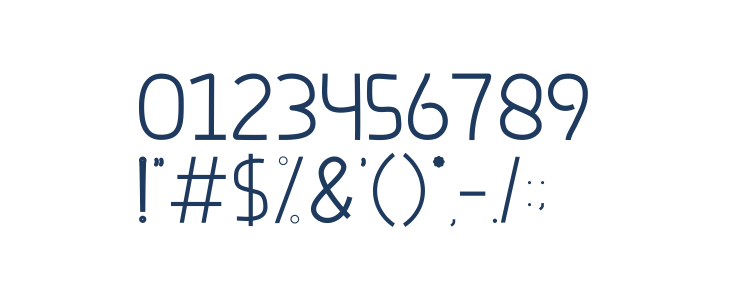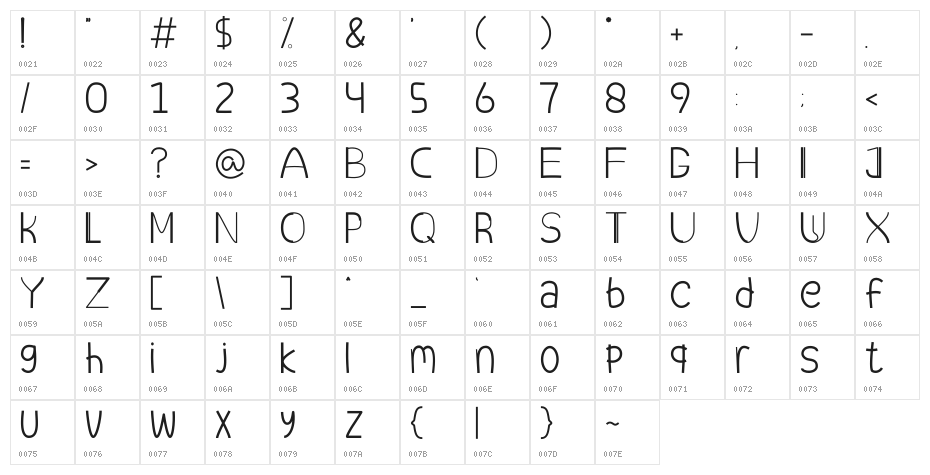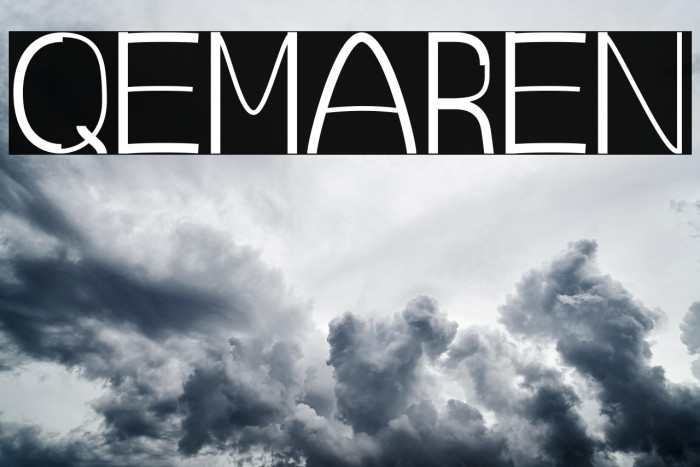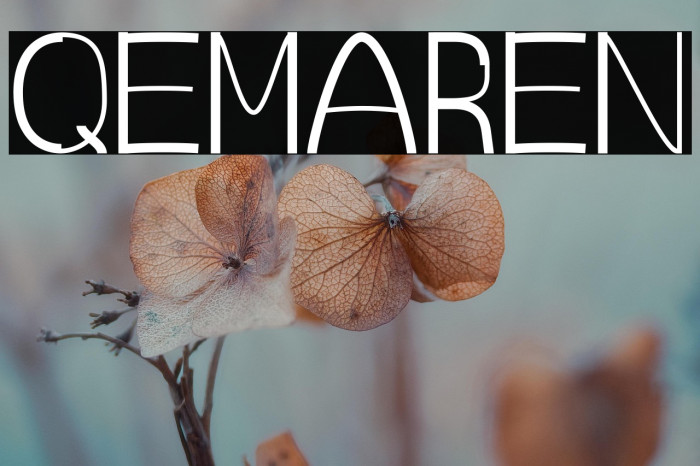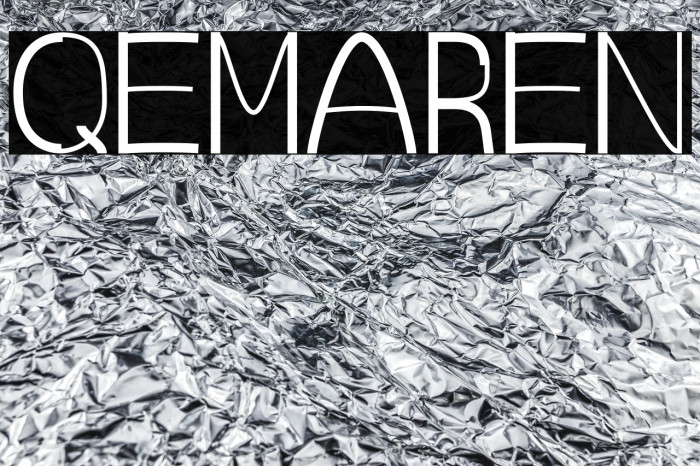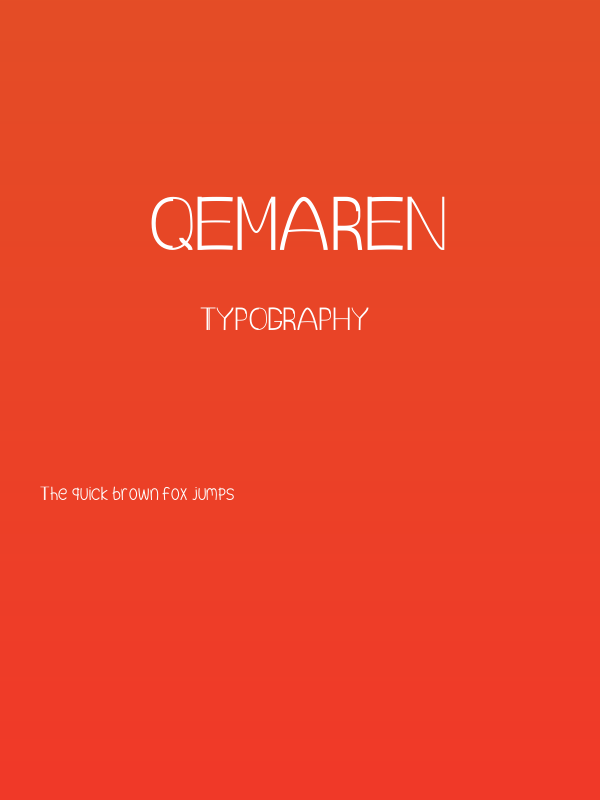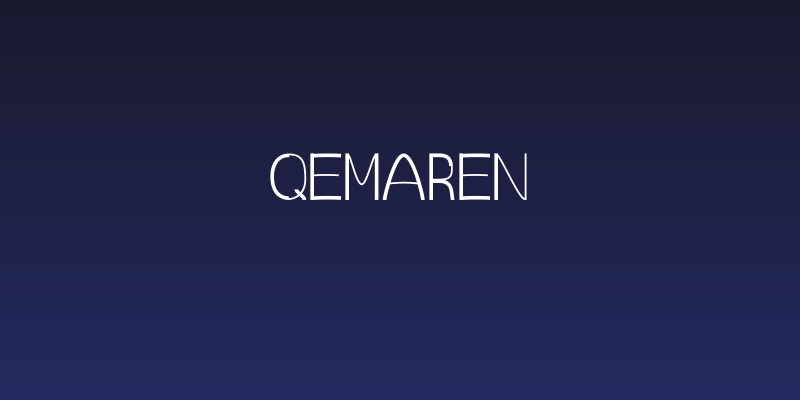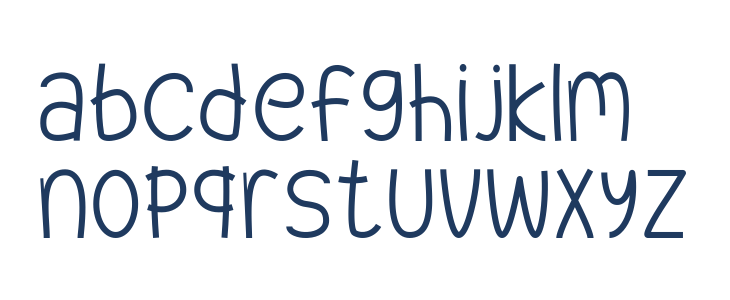
QEMAREN Font
QEMAREN Description
This font features a playful and whimsical design, characterized by its rounded and slightly irregular letterforms. The uppercase letters exhibit a unique blend of straight and curved lines, giving them a quirky yet readable appearance. The lowercase letters maintain a consistent style, with a slight tilt that adds to the font's charm. Numbers are bold and clear, ensuring legibility. Special characters are creatively designed, fitting seamlessly with the overall aesthetic. This font's distinct personality makes it suitable for projects that require a fun and engaging look.
| Proposed Projects | Ideal for children's books, playful branding, casual invitations, and creative posters. |